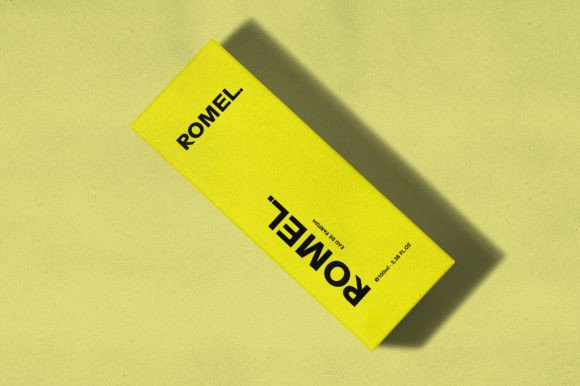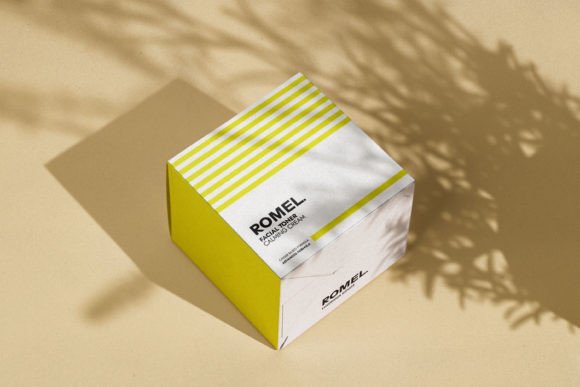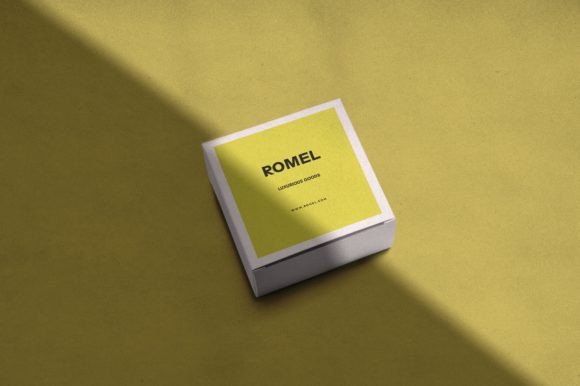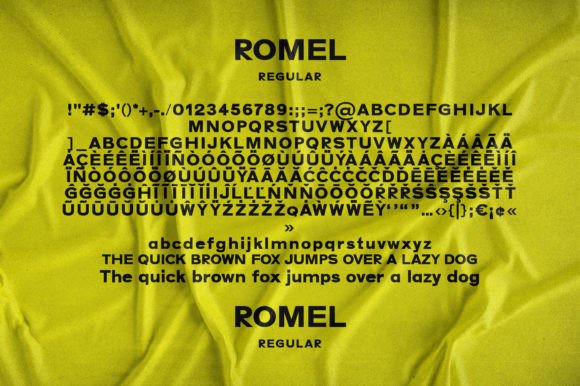
Introduction to Romel Font
Romel is an elegant minimalist bold sans serif typeface.
It was thought in the first place to function as a clean display sans serif that draws attention on large and small scales its versatility renders it a perfect choice when you have a project that requires simple glyphs structure, yet is still capable to grab the viewerโs attention.
Key Features of Romel Font